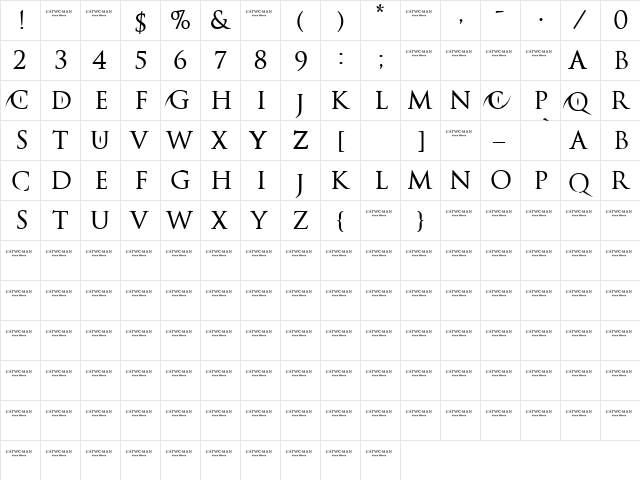
Catwoman Regular Font Preview
Catwoman Regular
Catwoman Regular Font Details
Design Context for Catwoman Typeface
Catwoman offers clean, dependable letterforms without strong stylistic allegiance, making it a practical choice for designers who need flexibility.
Pro Tip: Use Catwoman in both headline and body roles to test its range before committing to a single application.